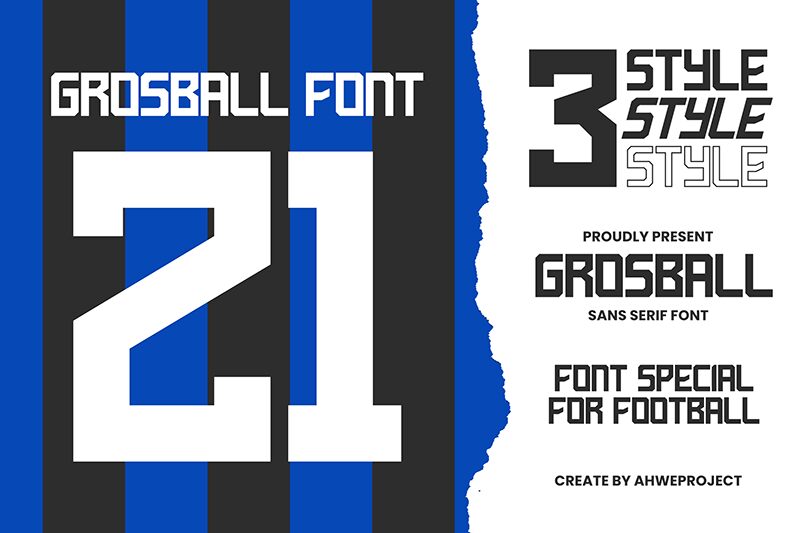
Grosball font by Ahwe Project is a display typeface that dazzles with its futuristic style, industrial touch, and geometric shapes. This condensed font extends its strong presence in a modern feel where an urban aesthetic becomes more than obvious. Make your headlines and posters stand out with just one glance when you use this free font.
Grosball